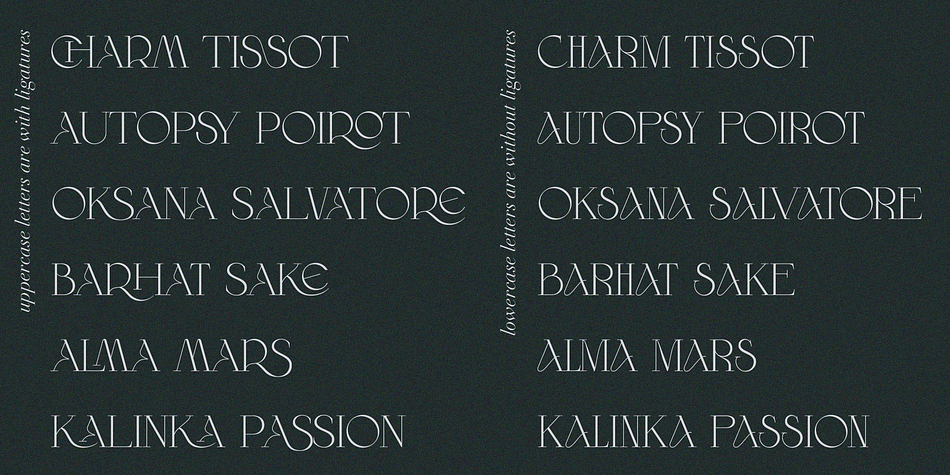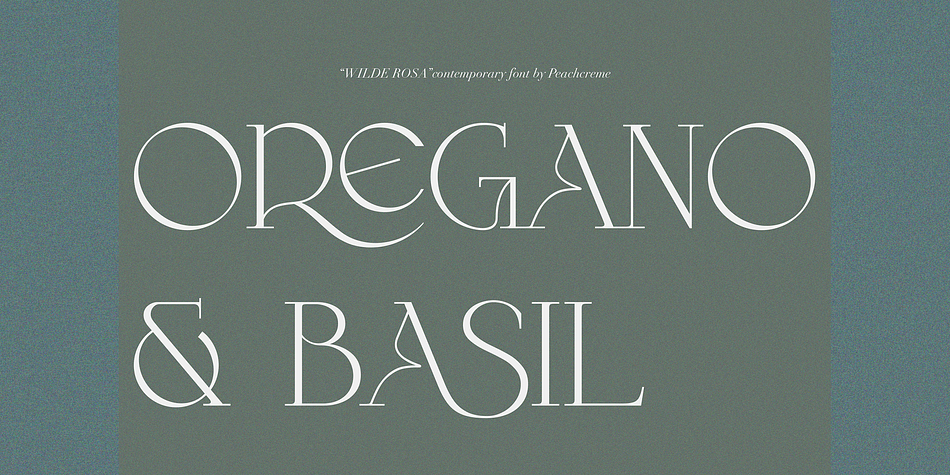
Wilde Rosa
Wilde Rosa is a display serif font family published by PeachCréme.
Say hello to our new contemporary all-caps font “Wilde Rosa”.
Perfect for logos, magazine titles, this lovely font can be paired with clean sans serif.